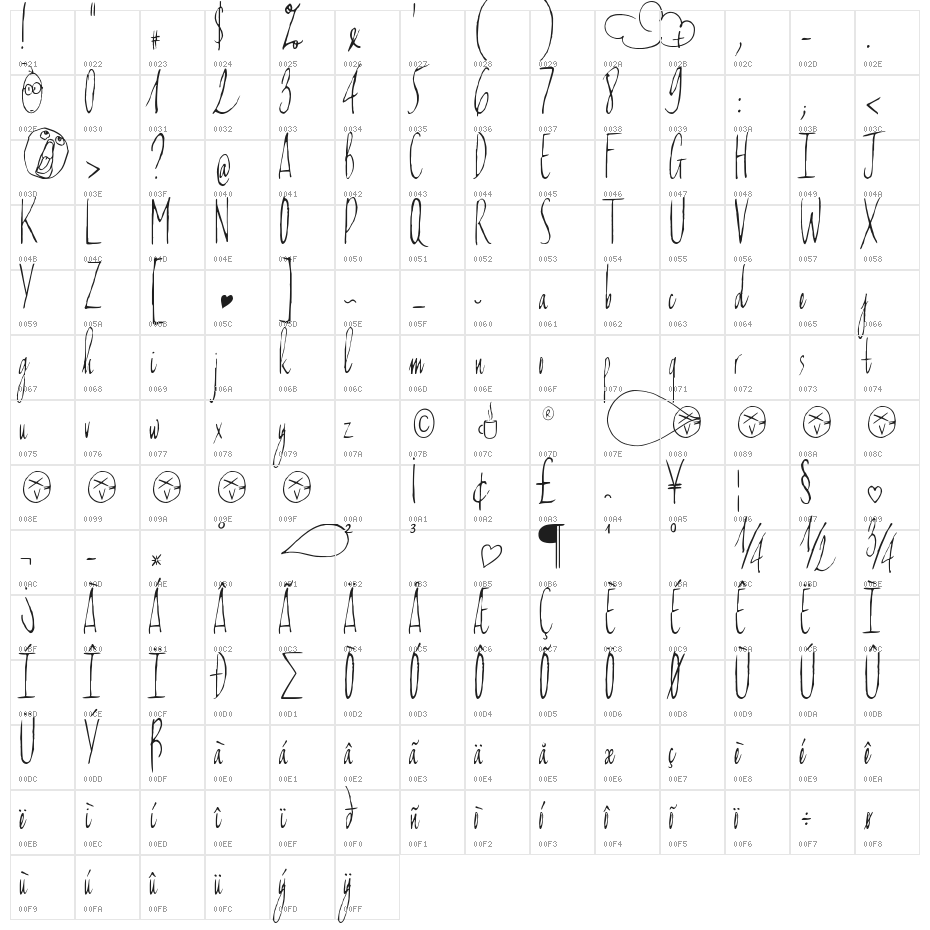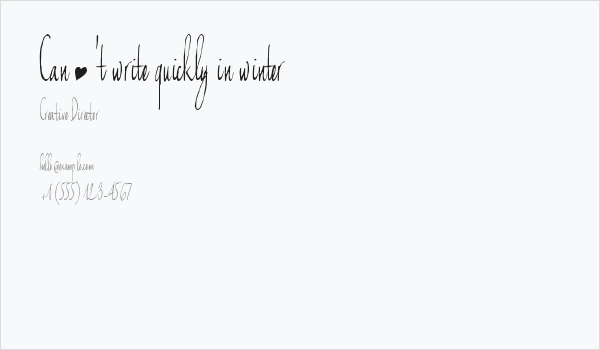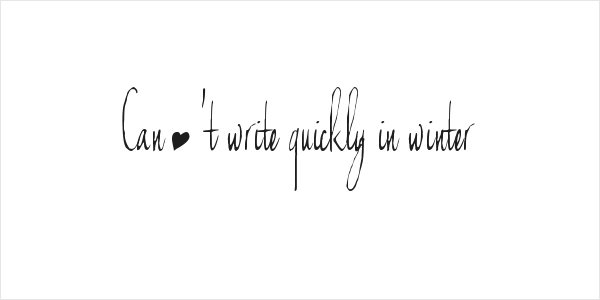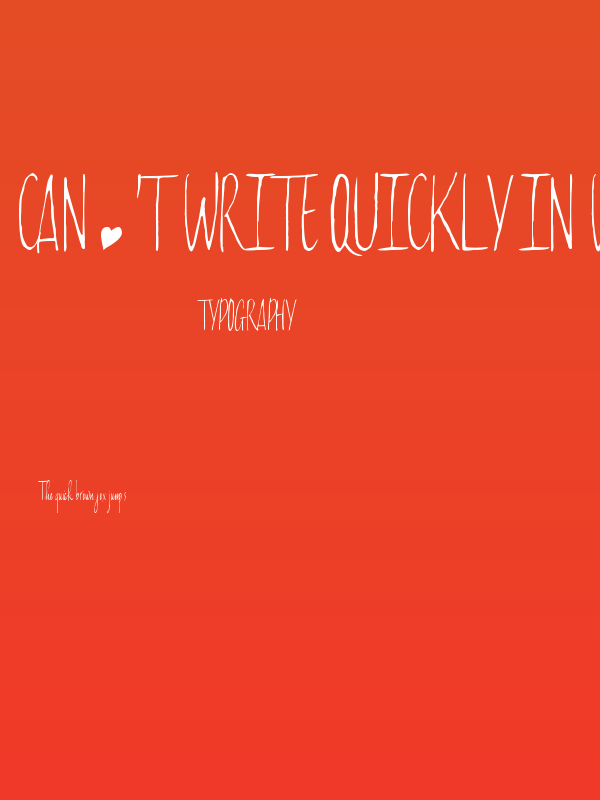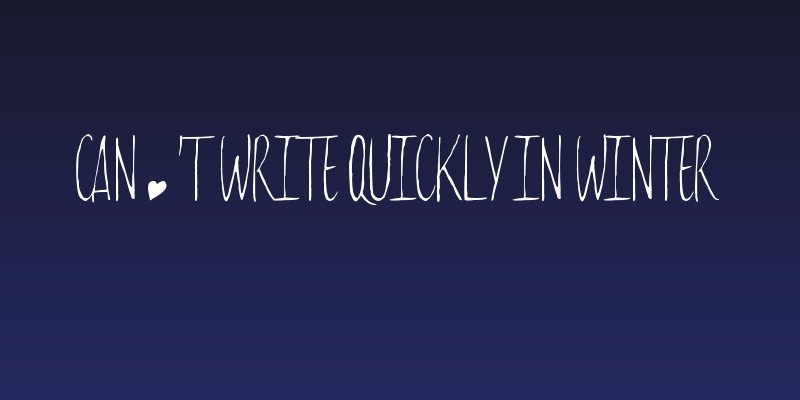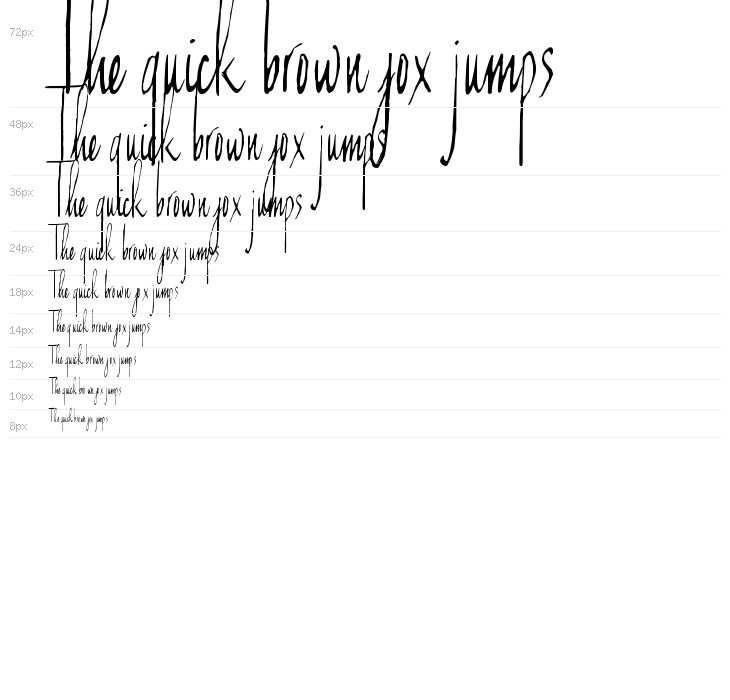
Can't write quickly in winter Font
Can't write quickly in winter Description
This font exhibits a unique, handwritten style with elongated, slender characters that convey a sense of spontaneity and fluidity. The uppercase letters are tall and narrow, with a slight slant that adds to the dynamic appearance. Lowercase letters maintain a consistent flow, enhancing the casual and personal feel of the font. The numbers and special characters follow the same aesthetic, ensuring uniformity across all elements. The overall design is reminiscent of quick, expressive handwriting, making it suitable for projects that require a personal touch or an informal tone.
| Overall Style | Casual, Artistic |
| Use Case | Creative projects, Personal notes, Informal invitations |
| Proposed Projects | Ideal for personal notes, creative projects, informal invitations, and artistic designs. |